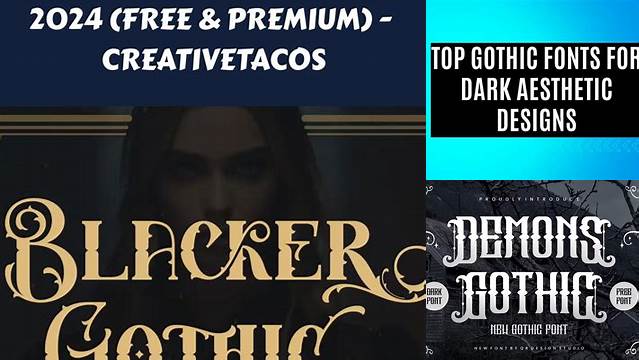
Gothic Fonts Canvas: Unleash Your Dark Designs
Gothic fonts, also known as blackletter fonts, possess a distinct and captivating aesthetic. Their intricate strokes, sharp angles, and dramatic flair evoke a sense of history, mystery, and timeless elegance. When combined with the versatility of canvas, gothic fonts offer a powerful medium for artistic expression, allowing you to create visually stunning designs that command attention. Let's dive deep into the world of gothic fonts on canvas, exploring their applications, design principles, and practical tips for bringing your dark designs to life.
Gothic Fonts: A Deep Dive
Before we jump into using gothic fonts on canvas, let's understand what makes them so unique. These fonts, originating from medieval Europe, are characterized by their dense, angular letterforms. Think of the classic Old English script – that's a prime example of a gothic font in action. Gothic fonts aren't just about looking old-fashioned; they carry a certain weight and presence that other fonts often lack. Whether you’re aiming for a vintage vibe, a touch of darkness, or a sense of formality, gothic fonts can deliver.
Canvas: The Perfect Backdrop
Canvas, a durable and versatile material, provides an excellent surface for showcasing gothic fonts. Its textured surface adds depth and character to your designs, enhancing the overall visual impact. Using canvas is like giving your artwork a touch of authenticity, reminiscent of traditional paintings and historical documents. Whether you're printing a digital design or hand-painting with acrylics, canvas elevates the presentation of your gothic font creations.
1. The History of Gothic Fonts
Understanding the history of gothic fonts will enrich your appreciation for their unique aesthetic and inform your design choices. Originating in medieval Europe, these fonts were initially used for religious texts and official documents. Their intricate letterforms reflected the craftsmanship of the time and conveyed a sense of authority and importance. As printing technology evolved, gothic fonts adapted and spread across various applications, from books to signage. Today, they continue to be used in a wide range of contexts, from branding to artistic expression, preserving their historical significance while embracing modern design trends. This background understanding helps choose the right gothic fonts.
2. Types of Gothic Fonts for Canvas Art
There is a wide array of gothic fonts available, each with its own unique characteristics and visual appeal. Some popular options include Old English, Fraktur, Textura, and Rotunda. Old English exudes a classic and formal aesthetic, while Fraktur offers a more decorative and intricate design. Textura is known for its sharp angles and dense letterforms, while Rotunda presents a more rounded and elegant appearance. Consider the specific mood and message you want to convey when selecting the right gothic font for your canvas art. Experiment with different styles to find the perfect match for your creative vision. When using gothic fonts, you must be able to differentiate their uses.
3. Choosing the Right Canvas Material
The canvas material you choose can significantly impact the final look and feel of your gothic font artwork. Cotton canvas is a popular and affordable option, known for its smooth surface and ability to hold paint well. Linen canvas, on the other hand, offers a more textured surface and greater durability, making it ideal for archival-quality prints. Consider the size and complexity of your design when selecting the appropriate canvas material. For larger pieces, a heavier-weight canvas may be necessary to prevent sagging or warping. Choosing the right canvas material is key.
4. Gothic Calligraphy on Canvas
Gothic calligraphy combines the art of beautiful handwriting with the distinctive style of gothic fonts. Using specialized pens and inks, you can create stunning calligraphic artworks on canvas, showcasing the intricate strokes and elegant letterforms of gothic fonts. Practice patience and precision to master the techniques of gothic calligraphy, and experiment with different nib sizes and ink colors to achieve unique effects. Consider incorporating decorative elements such as flourishes and embellishments to enhance the visual appeal of your calligraphic compositions. Make sure to have fun while doing gothic calligraphy.
5. Digital Gothic Font Design for Canvas Printing
Digital design tools offer a convenient and efficient way to create gothic font artwork for canvas printing. Using software like Adobe Photoshop or Illustrator, you can manipulate and customize gothic fonts to achieve your desired look. Experiment with different effects such as drop shadows, gradients, and textures to add depth and dimension to your designs. When preparing your artwork for printing, ensure that the resolution is high enough to prevent pixelation or blurring. Choose a reputable canvas printing service that offers high-quality prints and durable materials. Nowadays, using digital design tools for gothic fonts is easier than before.
6. Hand-Painting Gothic Fonts on Canvas
Hand-painting gothic fonts on canvas offers a tactile and artistic approach to creating unique artworks. Using acrylic paints and fine-tipped brushes, you can carefully render the intricate letterforms of gothic fonts, adding your personal touch and artistic flair. Practice your brushstrokes and experiment with different color combinations to achieve your desired effect. Consider using stencils or tracing techniques to guide your hand and ensure accuracy. Seal your finished artwork with a protective varnish to prevent fading or damage. There is a certain feeling when you are hand-painting gothic fonts.
7. Gothic Font Stencils for Canvas Projects
Gothic font stencils provide a convenient and easy way to incorporate gothic fonts into your canvas projects. Simply place the stencil onto your canvas and use a brush or sponge to apply paint over the openings. This technique is particularly useful for creating large-scale gothic font designs or for adding lettering to existing artworks. You can find a wide variety of gothic font stencils online or at your local craft store. Experiment with different paint colors and stencil sizes to achieve unique and eye-catching results. Using a gothic font stencil is very efficient.
8. Mixing Gothic Fonts with Other Styles
Combining gothic fonts with other font styles can create visually interesting and dynamic designs. Consider pairing a bold gothic font with a clean and modern sans-serif font to create a striking contrast. Experiment with different font weights and sizes to achieve a balanced and harmonious composition. Be mindful of the overall aesthetic and ensure that the different font styles complement each other rather than clash. This creative juxtaposition can add depth and complexity to your canvas artwork. Mixing gothic fonts with other styles can be challenging, but worth it.
9. Color Palettes for Gothic Font Canvas Art
The color palette you choose for your gothic font canvas art can significantly impact the overall mood and message of your design. Dark and muted colors such as black, gray, and deep red can evoke a sense of mystery and drama, while brighter colors can add a touch of vibrancy and energy. Consider the historical context of gothic fonts when selecting your color palette. Traditional gothic designs often feature gold or silver accents, while modern interpretations may incorporate bold and unexpected color combinations. Carefully consider color palettes.
10. Incorporating Gothic Font Quotes on Canvas
Adding gothic font quotes to your canvas art can infuse your designs with meaning and emotion. Choose quotes that resonate with the gothic aesthetic, such as excerpts from classic literature, historical texts, or philosophical treatises. Consider the length and complexity of the quote when selecting the appropriate font size and style. Experiment with different layouts and arrangements to create a visually appealing composition. Incorporating quotes is a nice way to use gothic fonts.
11. Gothic Font Typography for Canvas
Gothic font typography involves arranging and designing gothic fonts in a visually appealing and effective way. Pay attention to factors such as font size, spacing, and alignment to create a balanced and harmonious composition. Experiment with different typographic techniques such as kerning, leading, and tracking to fine-tune the appearance of your gothic fonts. Consider the overall message and purpose of your design when making typographic decisions. Always be creative when doing gothic font typography.
12. Creating Gothic Font Logos on Canvas
Gothic fonts can be used to create striking and memorable logos for businesses and organizations. Consider the brand identity and target audience when selecting the appropriate gothic font style. Ensure that the logo is legible and recognizable, even at small sizes. Experiment with different color combinations and layouts to create a visually appealing and effective logo. Test the logo on various backgrounds and materials to ensure that it maintains its impact and clarity. Using gothic fonts for logos are great for brand identity.
13. Gothic Font Wall Art on Canvas
Gothic font wall art on canvas offers a unique and stylish way to decorate your home or office. Create personalized canvas prints featuring gothic font quotes, monograms, or abstract designs. Choose colors and styles that complement your existing décor. Consider the size and placement of your wall art to create a visually balanced and harmonious space. Gothic font wall art can add a touch of sophistication and elegance to any room. You can create gothic font wall art at home.
14. Gothic Font Monograms on Canvas
Gothic font monograms provide a classic and elegant way to personalize your canvas art. Create custom monograms featuring your initials or the initials of a loved one. Choose a gothic font style that reflects your personal taste and style. Experiment with different color combinations and layouts to create a unique and eye-catching design. Gothic font monograms make thoughtful and personalized gifts. Using a gothic font monogram is a great personalized gift.
15. Gothic Font Wedding Decor on Canvas
Gothic fonts can add a touch of romance and elegance to your wedding décor. Create personalized canvas prints featuring gothic font quotes, monograms, or wedding vows. Use gothic fonts for your wedding invitations, seating charts, and signage. Consider incorporating gothic font elements into your table centerpieces and floral arrangements. Gothic font wedding décor can create a unique and memorable atmosphere for your special day. The use of gothic fonts can enhance your wedding decor.
16. Gothic Font Halloween Decorations on Canvas
Gothic fonts are perfect for creating spooky and atmospheric Halloween decorations on canvas. Design personalized canvas prints featuring gothic font quotes, Halloween-themed illustrations, or creepy monograms. Use gothic fonts for your Halloween party invitations, banners, and signage. Consider incorporating gothic font elements into your Halloween costumes and props. Gothic font Halloween decorations can create a chilling and unforgettable atmosphere for your Halloween festivities. Using gothic fonts for Halloween is an amazing idea.
17. Gothic Font Christmas Ornaments on Canvas
Gothic fonts can add a touch of elegance and sophistication to your Christmas decorations. Create personalized canvas ornaments featuring gothic font quotes, monograms, or Christmas-themed illustrations. Use gothic fonts for your Christmas cards, gift tags, and wrapping paper. Consider incorporating gothic font elements into your Christmas tree decorations and table centerpieces. Gothic font Christmas ornaments can create a unique and memorable atmosphere for your holiday celebrations. Gothic fonts are also perfect for Christmas.
18. Gothic Font Birthday Banners on Canvas
Creating birthday banners are a fun way to use gothic fonts. Design personalized canvas banners featuring gothic font birthday greetings, names, or ages. Use gothic fonts for your birthday party invitations, signage, and decorations. Consider incorporating gothic font elements into your birthday cake decorations and party favors. Gothic font birthday banners can create a festive and memorable atmosphere for your special day. Birthday banners are fun with gothic fonts.
19. Gothic Font Graduation Gifts on Canvas
Gothic fonts can be used to create thoughtful and personalized graduation gifts on canvas. Design personalized canvas prints featuring gothic font quotes, monograms, or graduation-themed illustrations. Use gothic fonts for your graduation announcements, thank-you notes, and party decorations. Consider incorporating gothic font elements into your graduation scrapbook or yearbook. Gothic font graduation gifts can commemorate this special milestone in a unique and meaningful way. Gothic fonts for graduation can be a great idea.
20. Gothic Font Memorial Art on Canvas
Gothic fonts can provide a respectful and elegant way to create memorial art on canvas. Design personalized canvas prints featuring gothic font quotes, names, or dates of remembrance. Use gothic fonts for memorial service programs, thank-you cards, and commemorative displays. Consider incorporating gothic font elements into your memorial garden or tribute area. Gothic font memorial art can honor the memory of loved ones in a dignified and meaningful way. Designing a memorial using gothic fonts is meaningful.
21. Gothic Font Business Signage on Canvas
Using gothic fonts for signage can be very classy. Design personalized canvas signs featuring gothic font business names, logos, or slogans. Use gothic fonts for your storefront signage, window displays, and promotional banners. Consider incorporating gothic font elements into your business cards, brochures, and website. Gothic font business signage can create a unique and memorable brand identity for your business. Always keep your brand identity in mind when designing your gothic fonts.
22. Gothic Font Tattoo Designs on Canvas (Practice)
Before getting a tattoo, it's a great idea to practice with gothic fonts on canvas! This allows you to experiment with different designs and placements before committing to permanent ink. Design personalized canvas prints featuring gothic font tattoo designs, quotes, or names. Use gothic fonts to create temporary tattoos or body art for parties and events. Consider incorporating gothic font elements into your tattoo flash sheets and design portfolios. Practicing gothic fonts on canvas is an excellent way to refine your tattoo ideas and ensure a satisfying result.
23. Gothic Font Book Covers on Canvas
Gothic fonts can be used to create captivating and atmospheric book covers on canvas. Design personalized canvas prints featuring gothic font book titles, author names, or cover illustrations. Use gothic fonts to create mock-ups of book covers for your writing projects or design portfolio. Consider incorporating gothic font elements into your book trailers, promotional materials, and author website. Gothic font book covers can attract readers and create a lasting impression. Use creative design when working with gothic fonts.
24. Gothic Font Movie Posters on Canvas
Using gothic fonts for movie posters can be awesome. Design personalized canvas prints featuring gothic font movie titles, taglines, or character names. Use gothic fonts to create mock-ups of movie posters for your film projects or design portfolio. Consider incorporating gothic font elements into your movie trailers, promotional materials, and film festival submissions. Gothic font movie posters can create a sense of drama, mystery, and excitement. Always make gothic fonts visible to your audience.
25. Gothic Font Game Design Elements on Canvas
Gothic fonts can be used to create immersive and atmospheric game design elements on canvas. Design personalized canvas prints featuring gothic font game titles, character names, or in-game text. Use gothic fonts to create mock-ups of game interfaces, menus, and loading screens. Consider incorporating gothic font elements into your game trailers, promotional materials, and crowdfunding campaigns. Gothic font game design elements can enhance the player experience and create a unique visual identity for your game. A unique game deserves gothic fonts.
26. Gothic Font Clothing Designs on Canvas
You can try out gothic fonts on canvas before printing clothes! Design personalized canvas prints featuring gothic font quotes, monograms, or illustrations for clothing. Use gothic fonts to create mock-ups of t-shirts, hoodies, and other apparel items. Consider incorporating gothic font elements into your clothing line designs, fashion shows, and online store. Trying out gothic fonts on clothing designs can create a bold and stylish statement. It's best to plan your clothing line by experimenting with your designs using gothic fonts.
27. Gothic Font Jewelry Designs on Canvas
Gothic fonts can be used to create unique and personalized jewelry designs on canvas. Design personalized canvas prints featuring gothic font initials, names, or symbols for pendants, rings, and bracelets. Use gothic fonts to create mock-ups of jewelry pieces for your jewelry-making projects or design portfolio. Consider incorporating gothic font elements into your jewelry displays, promotional materials, and online store. Experiment with different color gothic fonts to design your jewelry.
28. Gothic Font Product Packaging on Canvas
You can use gothic fonts for product packaging. Design personalized canvas prints featuring gothic font product names, slogans, or ingredient lists. Use gothic fonts to create mock-ups of product labels, boxes, and containers for your product line. Consider incorporating gothic font elements into your point-of-sale displays, promotional materials, and online store. Using gothic fonts for product packaging can create a sophisticated and memorable brand experience. Always make your product and brand identity stand out using gothic fonts.
29. Gothic Font Website Design Mockups on Canvas
Planning to build a website using gothic fonts? Design personalized canvas prints featuring gothic font website headers, navigation menus, or body text. Use gothic fonts to create mock-ups of website layouts, landing pages, and blog posts. Consider incorporating gothic font elements into your website branding, social media graphics, and online advertising. Using gothic fonts for website design mockups can create a visually striking and user-friendly online experience. Planning your website ensures quality performance and aesthetic.
30. The Future of Gothic Fonts on Canvas
The future of gothic fonts on canvas is bright, with endless possibilities for creative expression and innovation. As digital design tools and printing technologies continue to evolve, artists and designers will have even more opportunities to experiment with gothic fonts and push the boundaries of what's possible. Whether you're a seasoned professional or a budding enthusiast, embrace the versatility and timeless appeal of gothic fonts on canvas and unlock your creative potential. The future is yours to design, so go forth and create! What could be the future of gothic fonts?